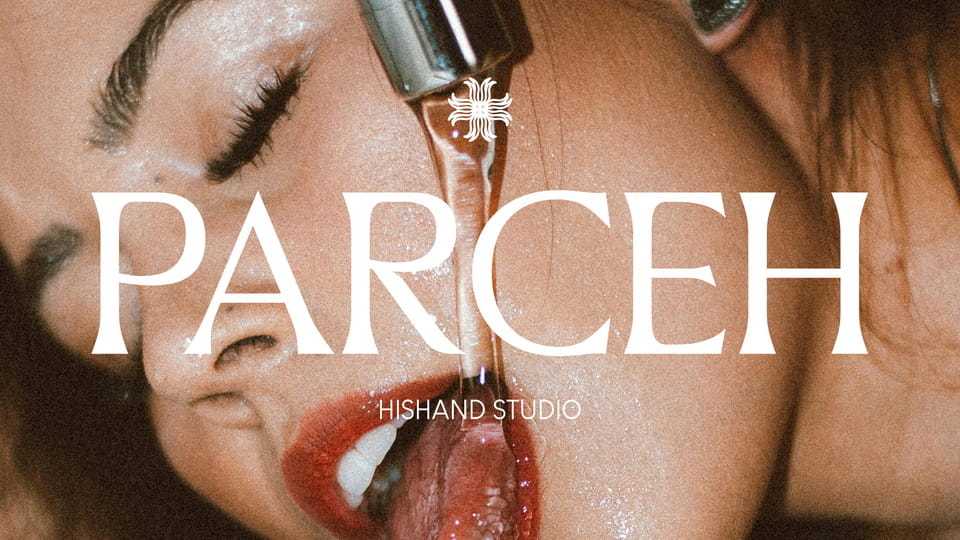
Parceh Serif Font › Fontesk – Download Grátis
Download Parceh font, an elegant serif display typeface designed to bring a refined yet striking aesthetic to any creative project with its delicate high-contrast strokes, graceful serifs, and poised proportions.